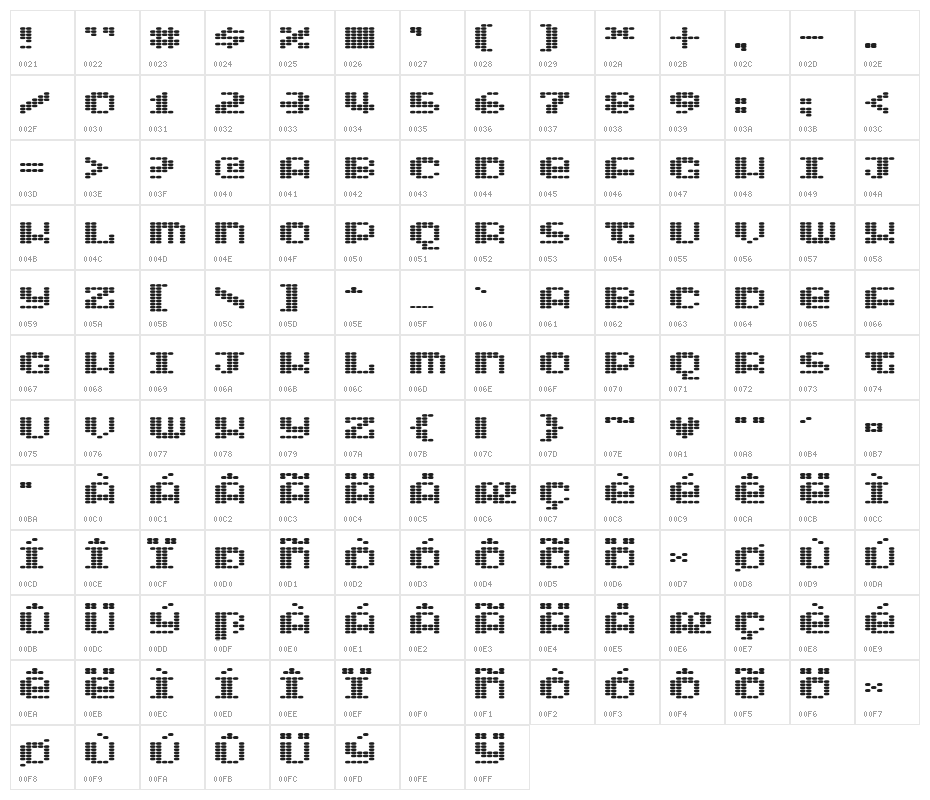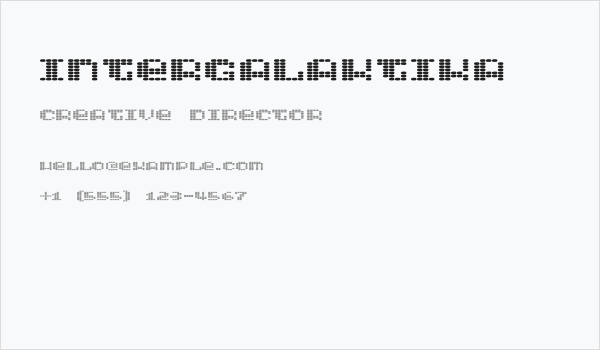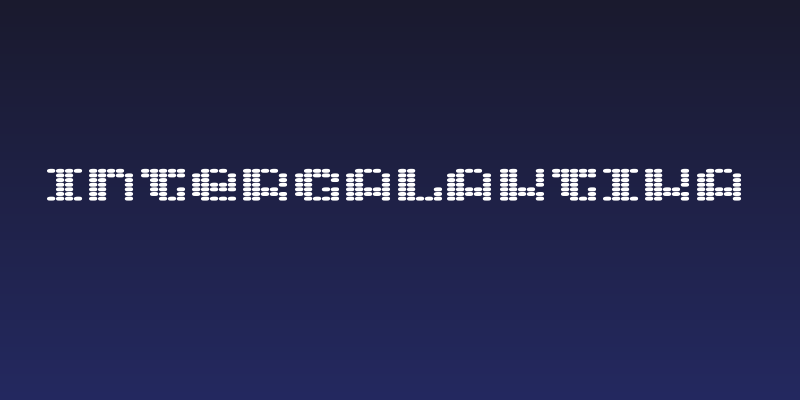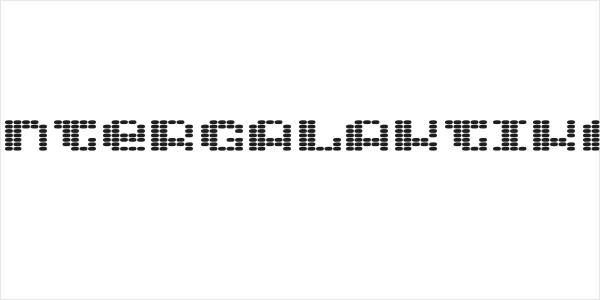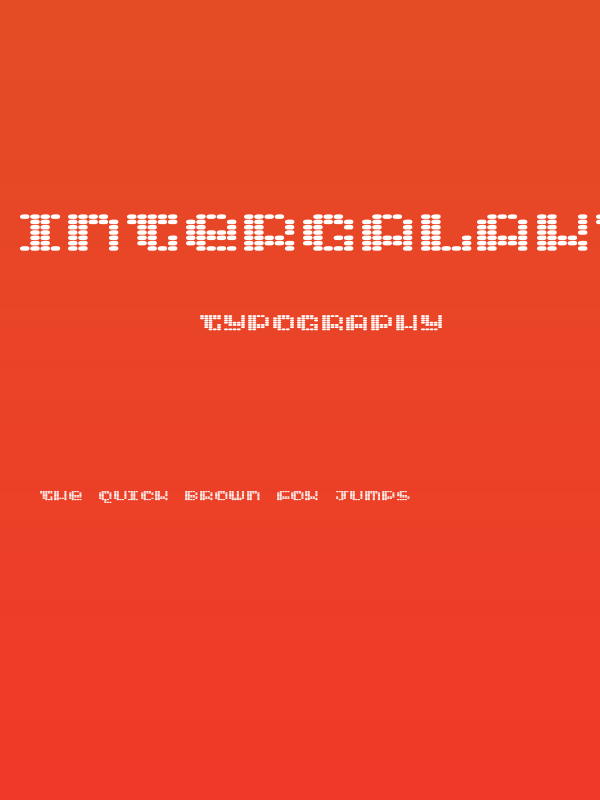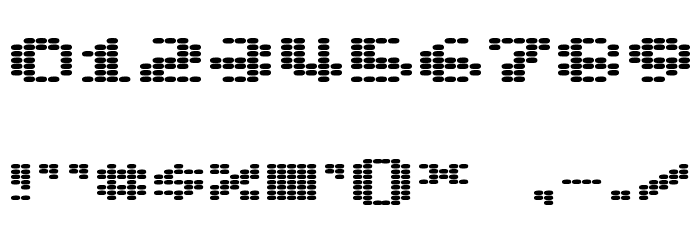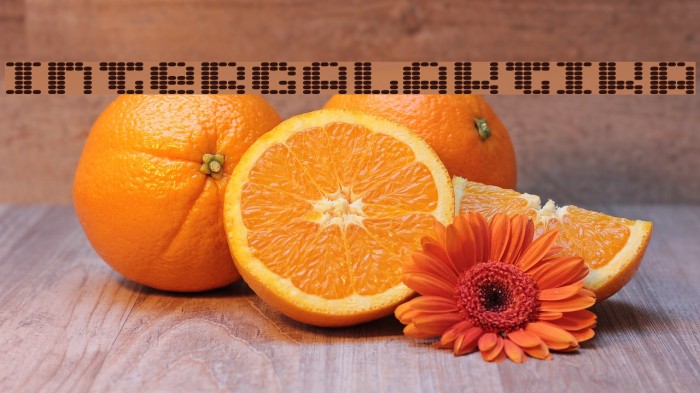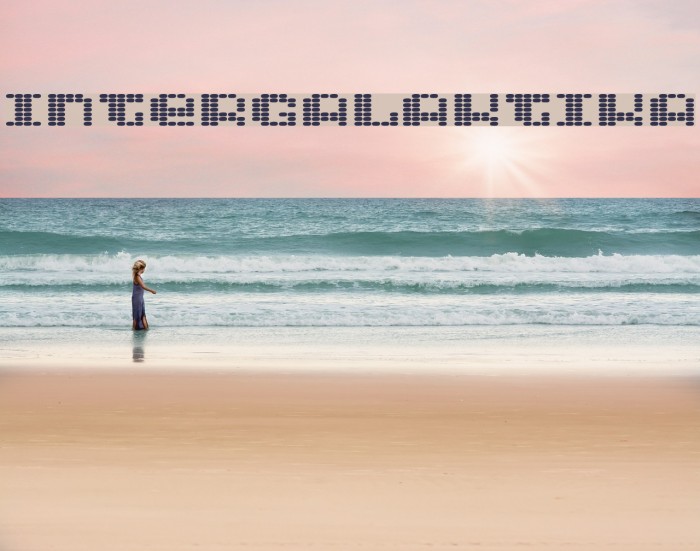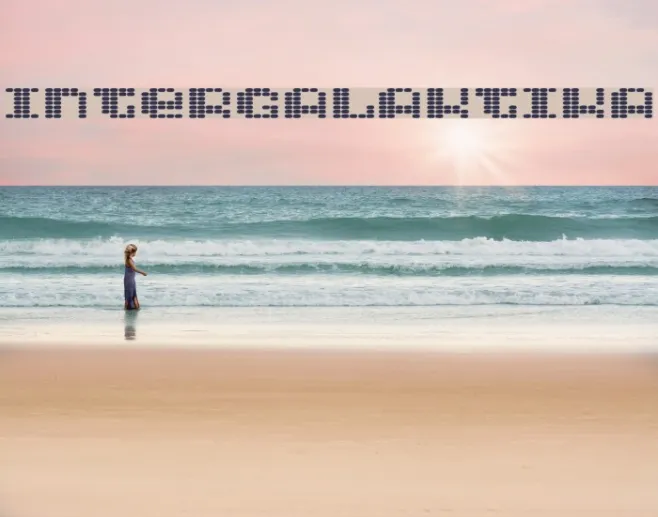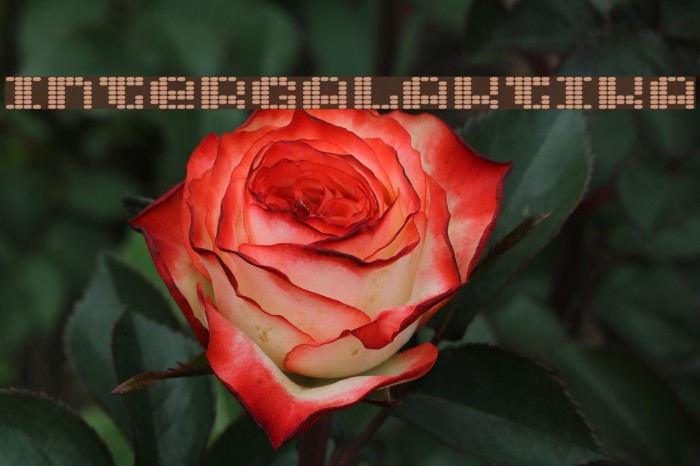
Intergalaktika Font
Intergalaktika Description
This font features a futuristic and digital aesthetic, composed entirely of small, evenly spaced dots that form each character. The design is reminiscent of LED displays or dot matrix printers, giving it a distinctly modern and technological feel. The characters are uniformly structured, maintaining a consistent height and width, which enhances readability despite the unconventional style. The font's geometric nature is both playful and precise, making it suitable for creative and tech-oriented projects. It captures attention with its unique dot pattern, making it ideal for headlines and display purposes.
| Use Case | Headlines, Logos, Display text |
| Proposed Projects | Ideal for tech-related branding, digital art projects, futuristic themes, and creative displays. |